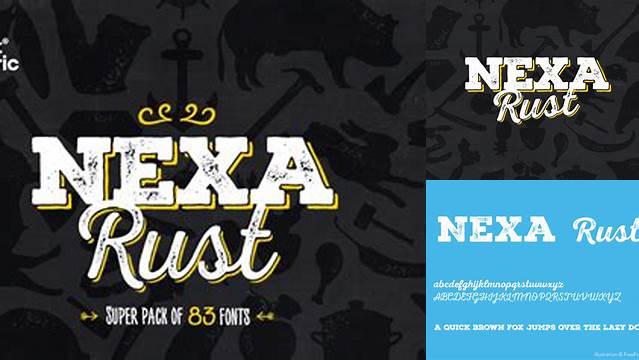
Hey guys! Are you looking to add some serious character to your designs? Well, you've come to the right place! Let's dive into the world of the free font Nexa Rust, a font that's been making waves in the design community. This article is your ultimate guide to understanding, downloading, and effectively using this awesome font. So, buckle up and let's get started!
What Makes Nexa Rust So Special?
Nexa Rust isn't just another font; it's a comprehensive type system that includes a variety of styles, weights, and textures. What sets it apart is its distressed, vintage look, which gives your designs an authentic, hand-crafted feel. Whether you're working on branding, posters, or web design, the free font Nexa Rust can add that extra layer of depth and personality. Its versatility allows it to fit into a variety of design aesthetics, from rugged and industrial to warm and inviting. The beauty of Nexa Rust lies in its ability to evoke a sense of nostalgia while still feeling modern and relevant.
Nexa Rust Font Family: A Detailed Overview
The Nexa Rust font family is extensive, offering a wide range of options to suit your specific design needs. Understanding the different styles and weights within the family is crucial to effectively using this font. This includes sans-serif, slab-serif, script, and even decorative elements. Each style has its own unique characteristics, allowing you to mix and match to create visually interesting and dynamic designs. The free font Nexa Rust usually refers to a specific subset offered for free, often a regular weight of one of the styles, giving you a taste of the full family's potential. Knowing the full scope of the family helps you appreciate the nuances and plan for future projects where you might want to invest in the complete set.
Using Nexa Rust in Graphic Design Projects
The free font Nexa Rust is incredibly versatile and can be used in a wide range of graphic design projects. Its unique, textured appearance makes it perfect for creating eye-catching headlines, logos, and posters. When using Nexa Rust, consider the overall aesthetic you’re trying to achieve. For a vintage look, pair it with other retro elements like old photographs and muted color palettes. For a more modern feel, use it sparingly as an accent font alongside cleaner, sans-serif typefaces. Experiment with different weights and styles within the Nexa Rust family to create visual hierarchy and add depth to your designs. Remember, typography is an art form, so don’t be afraid to play around and see what works best for your project.
Nexa Rust for Branding: Creating a Unique Identity
If you're looking to create a brand identity that stands out, the free font Nexa Rust can be a fantastic choice. Its distinctive, slightly rough appearance can add a touch of authenticity and personality to your brand. Consider using Nexa Rust in your logo, website headers, and marketing materials to create a cohesive visual identity. When using Nexa Rust for branding, make sure it aligns with your brand's values and target audience. A rustic, vintage-inspired font might not be the best choice for a high-tech startup, but it could be perfect for a craft brewery or a vintage clothing store. Ensure legibility by choosing appropriate sizes and weights, especially for smaller applications like business cards.
Nexa Rust in Web Design: Enhancing User Experience
Incorporating the free font Nexa Rust into your web design can significantly enhance the user experience. Use it for headings and subheadings to grab attention and create visual interest. However, be mindful of readability. While Nexa Rust is great for headlines, it might not be the best choice for large blocks of body text. Pair it with a clean, easy-to-read sans-serif font for the body text to ensure a comfortable reading experience. Also, consider the loading time. Using too many font variations can slow down your website, so optimize your font usage and consider using web font formats like WOFF and WOFF2 to improve performance.
Combining Nexa Rust with Other Fonts: Best Practices
Combining the free font Nexa Rust with other fonts can create visually appealing and dynamic designs. The key is to choose fonts that complement Nexa Rust without overpowering it. Generally, clean and simple sans-serif fonts like Open Sans or Lato work well as body text when paired with Nexa Rust headlines. Avoid using fonts that are too similar in style to Nexa Rust, as this can create a cluttered and confusing look. Experiment with different font pairings to see what works best for your specific project. Use online tools like FontPair to get inspiration and see how different fonts look together before you commit to a specific combination.
Nexa Rust Alternatives: Exploring Similar Fonts
If you're looking for alternatives to the free font Nexa Rust, there are several fonts that offer a similar vintage or distressed aesthetic. Fonts like Bebas Neue, Montserrat, and Raleway can provide a similar feel, especially when paired with textures or effects to give them a more worn appearance. Another option is to explore other textured fonts that mimic the hand-crafted look of Nexa Rust. Consider what aspects of Nexa Rust you like most—is it the texture, the vintage feel, or the overall style? Use this to guide your search for alternatives. Also, keep in mind that many fonts offer free trials or demo versions, so you can test them out before committing to a purchase.